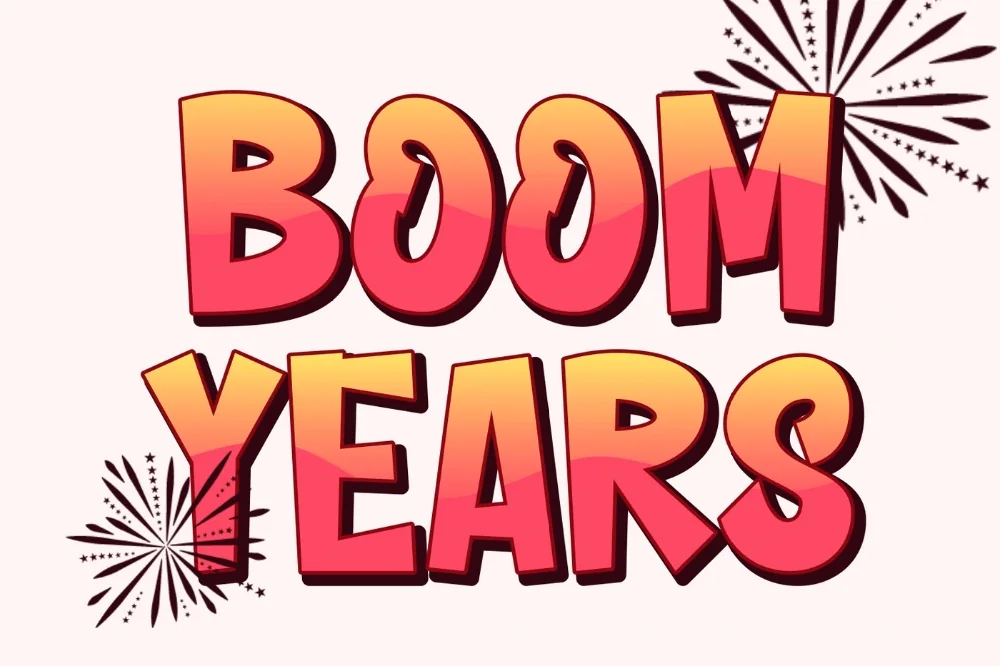
Retro Burst Graffiti Font
If you have been hunting for a retro graffiti font that does not look like every other download on the internet, this one earns its place. Seventies burst shapes crossed with modern street lettering. Warm, nostalgic, and instantly dated in the best way.
Rounded letters swell outward from a central axis and radiating lines fan out behind several characters. The colour palette you choose does most of the era-setting work.
Great for retro merch, roller disco events, vinyl-look covers, and vintage-style packaging.